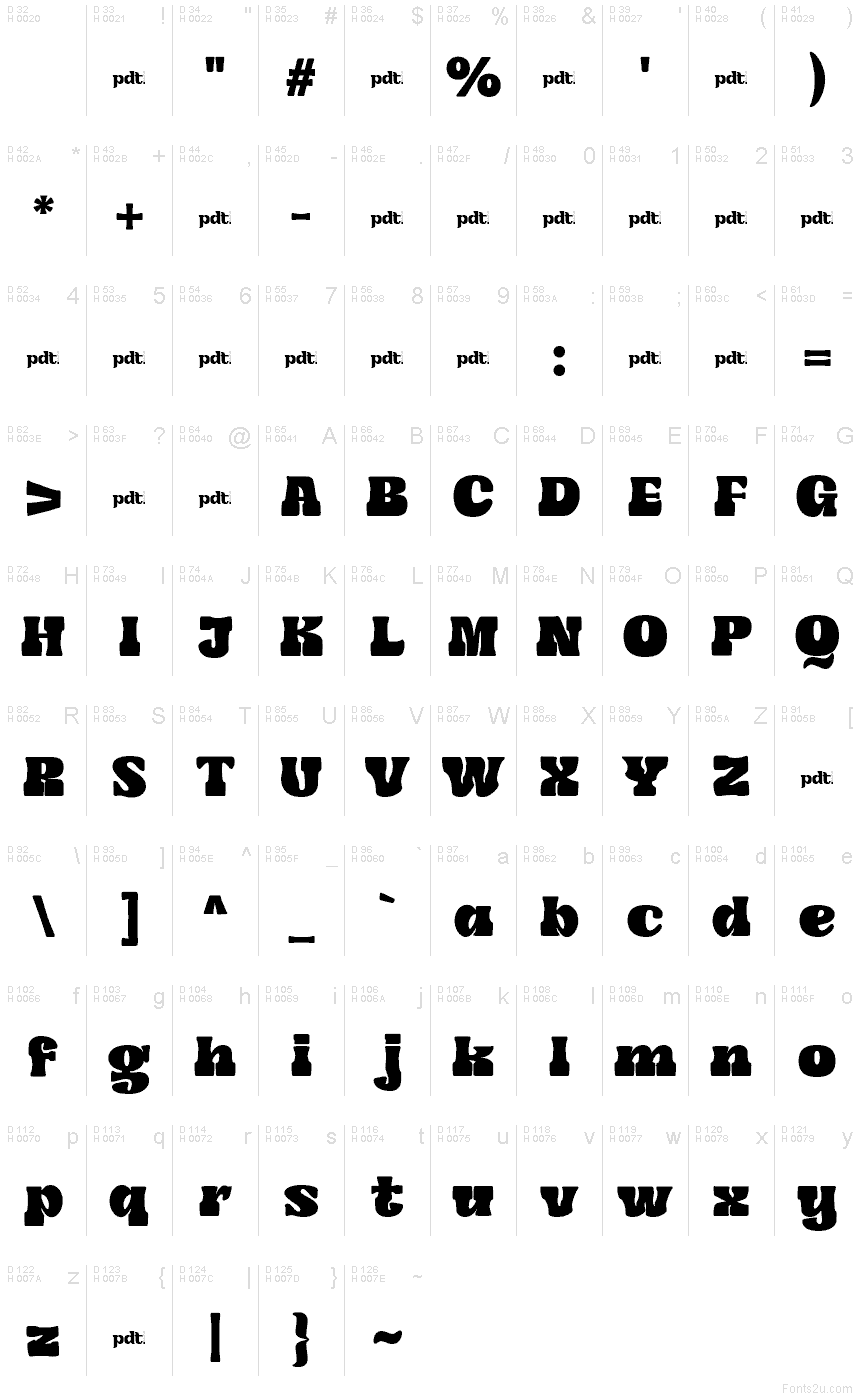
Yuk Ngexi trial Regular
Yuk Ngexi font by productype.com is a free groovy display typeface that crashes onto the page with thick, inky blobs and playful, rolling curves. Its chunky, almost squished shapes feel like they’ve been pressed from soft vinyl, giving every word a bold, retro bounce. The tight rhythm between letters creates a solid, unified word-shape, so even short titles feel like custom lettering.
Using Yuk Ngexi, you can push branding for music events, retro party flyers, funky packaging, statement social posts, bold logos, and merch that needs to shout from across the room. This free font shines at large sizes where its quirky curves can really breathe. Pair it with a clean, narrow sans serif for body copy to let Yuk Ngexi handle all the attitude up top.